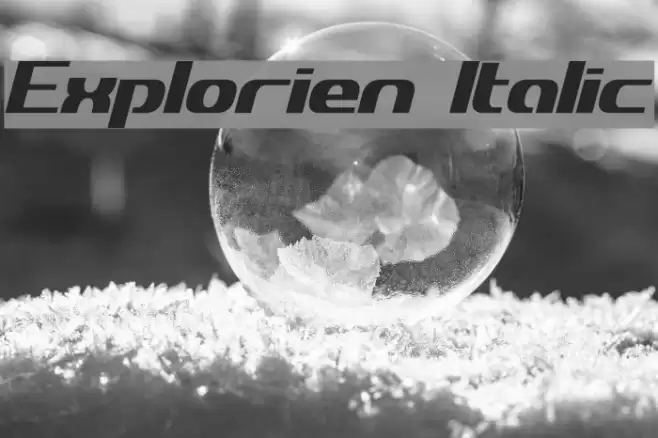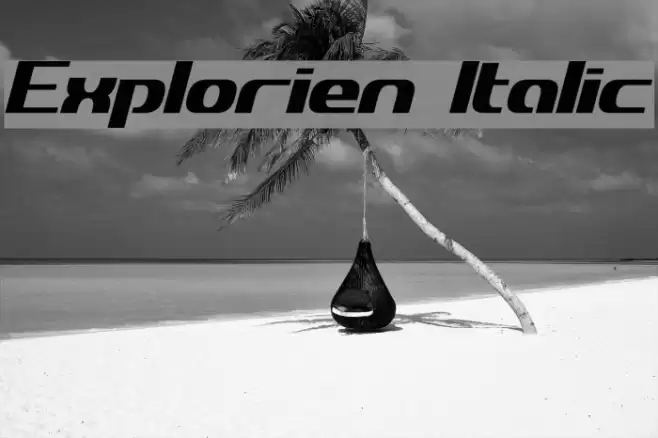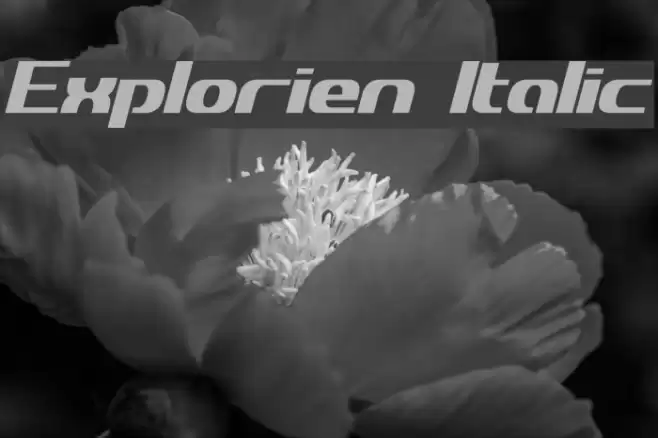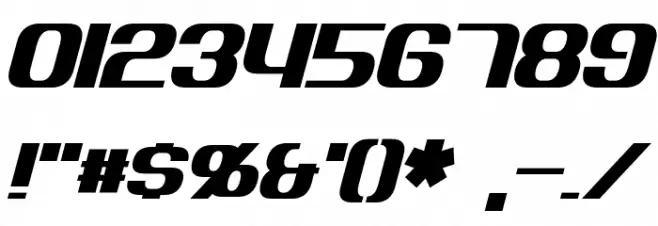
Explorien Italic Font
Explorien Italic Description
This font features a dynamic and modern design with a forward-leaning italic style. The characters are bold and slightly condensed, giving a sense of speed and movement. The strokes are consistent in thickness, providing a medium contrast that enhances readability while maintaining a sleek appearance. The uppercase letters are tall and commanding, while the lowercase letters maintain a cohesive flow. The numerals are clear and distinct, matching the overall aesthetic. Special characters are designed with the same attention to detail, ensuring they integrate seamlessly with the rest of the typeface.
A bold, italic font with a modern, dynamic style and medium contrast from Uncategorized fonts.
- Proposed Projects: Ideal for branding, sports-related designs, automotive advertising, and modern tech interfaces.